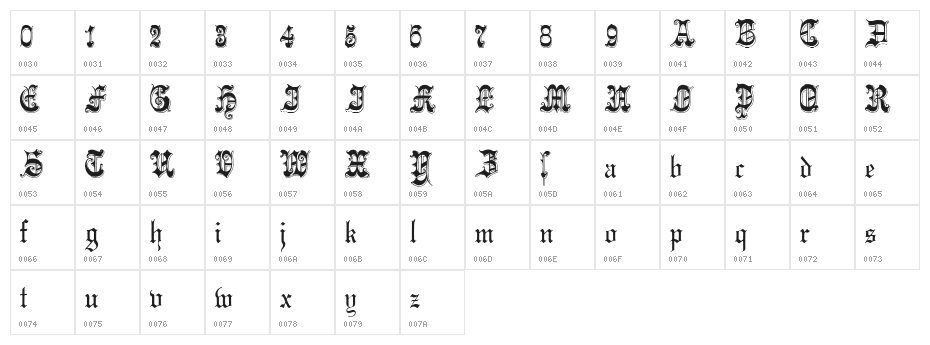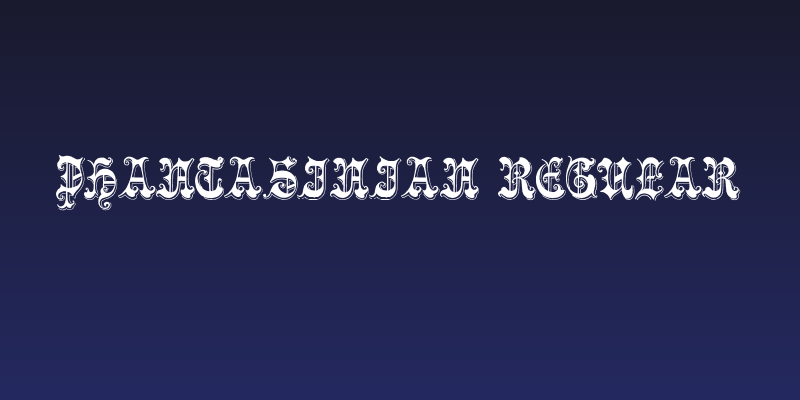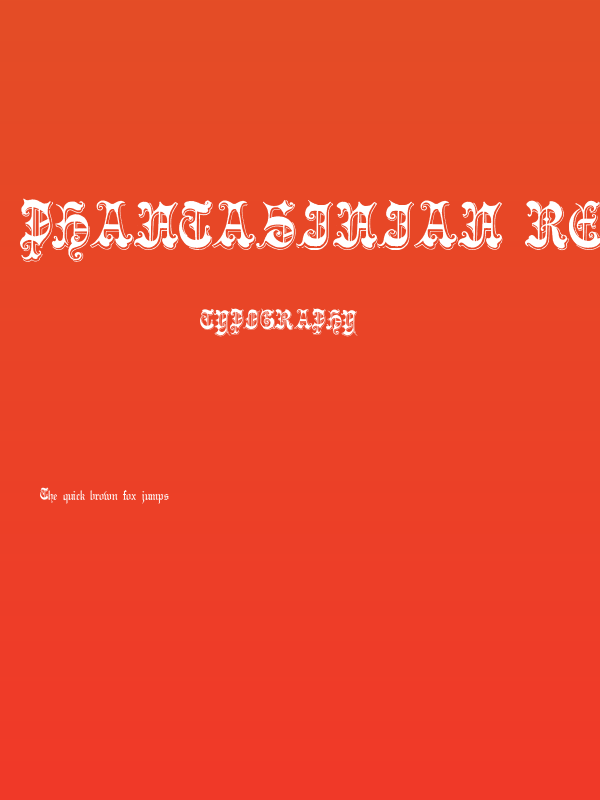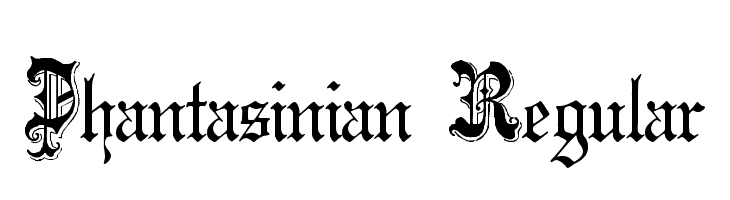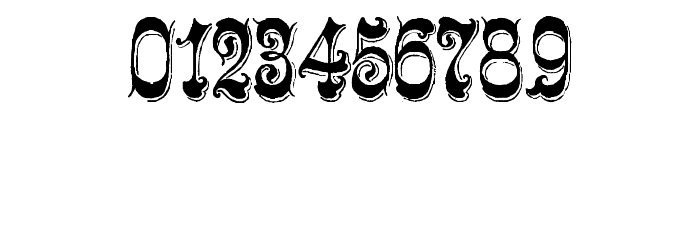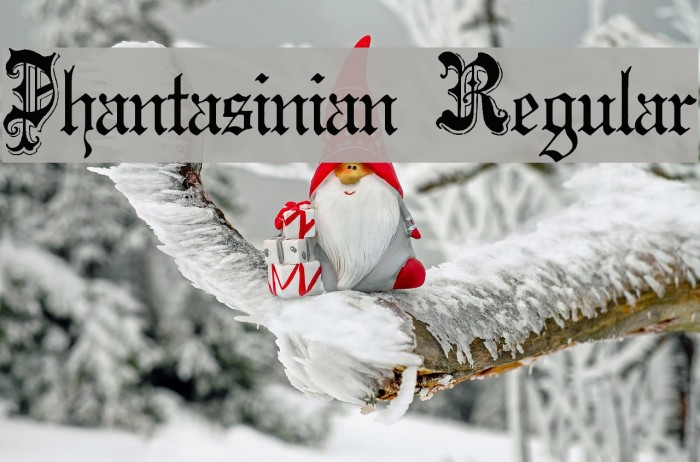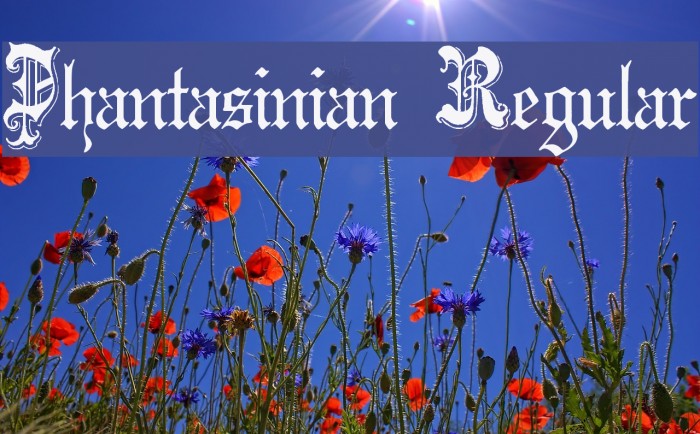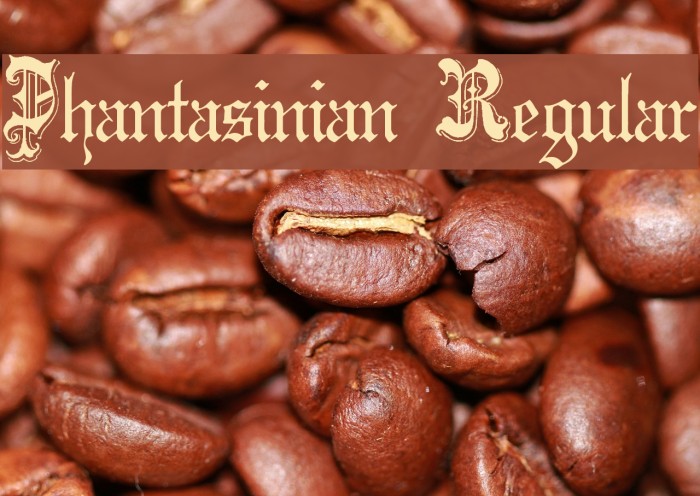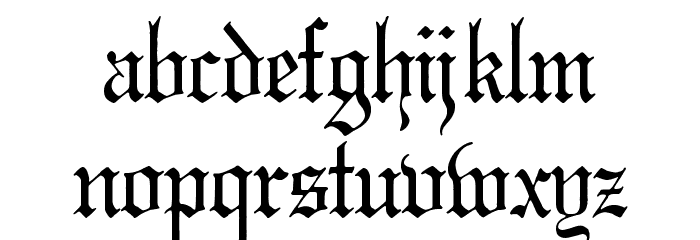
Phantasinian Regular Font
Phantasinian Regular Description
This font exhibits a classic Blackletter style, characterized by its intricate and ornate letterforms. The uppercase letters are particularly elaborate, featuring sharp angles and decorative flourishes that give them a gothic appearance. The lowercase letters maintain a more traditional Blackletter form, with tall, narrow shapes and pointed arches. The numerals are consistent with the overall style, incorporating similar decorative elements. This font is highly stylized, making it suitable for projects that require a historical or medieval aesthetic.
| Proposed Projects | Ideal for historical documents, medieval-themed designs, book covers, and decorative certificates. |